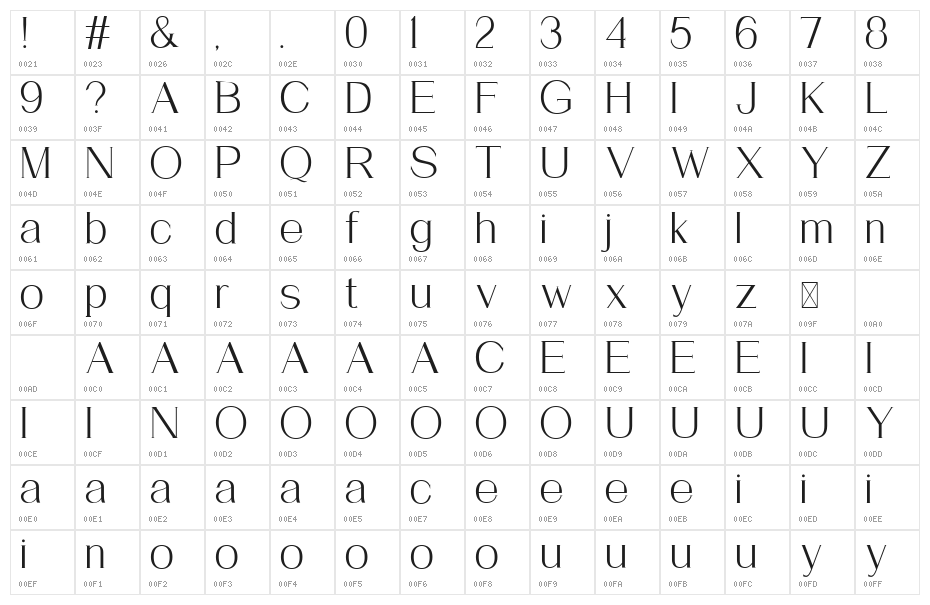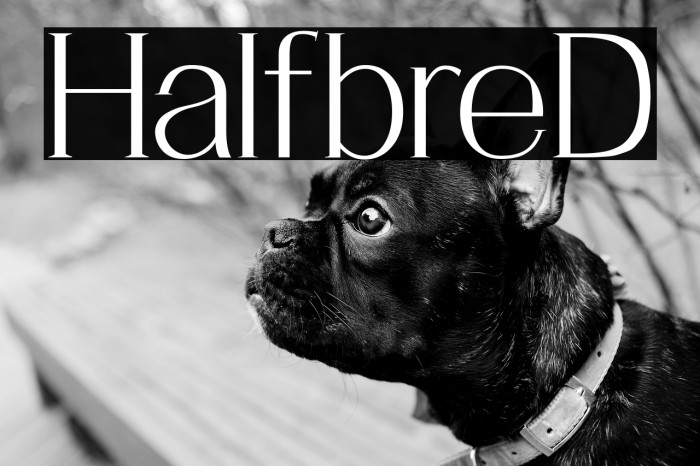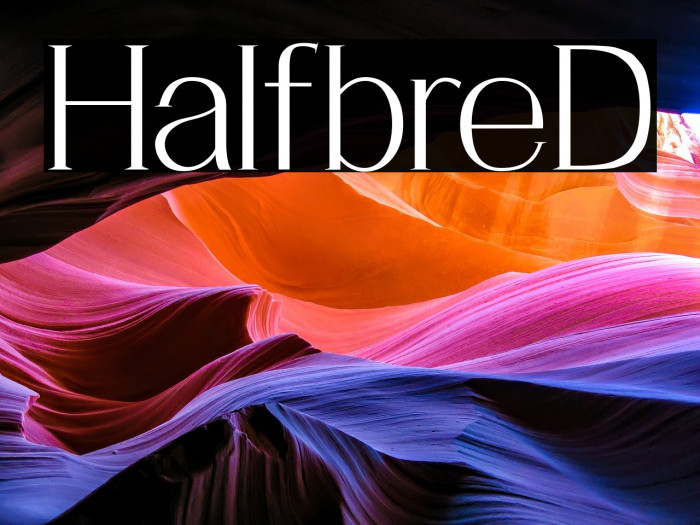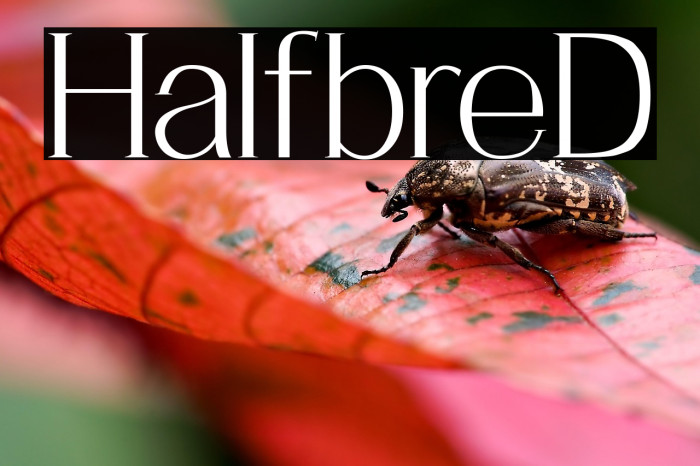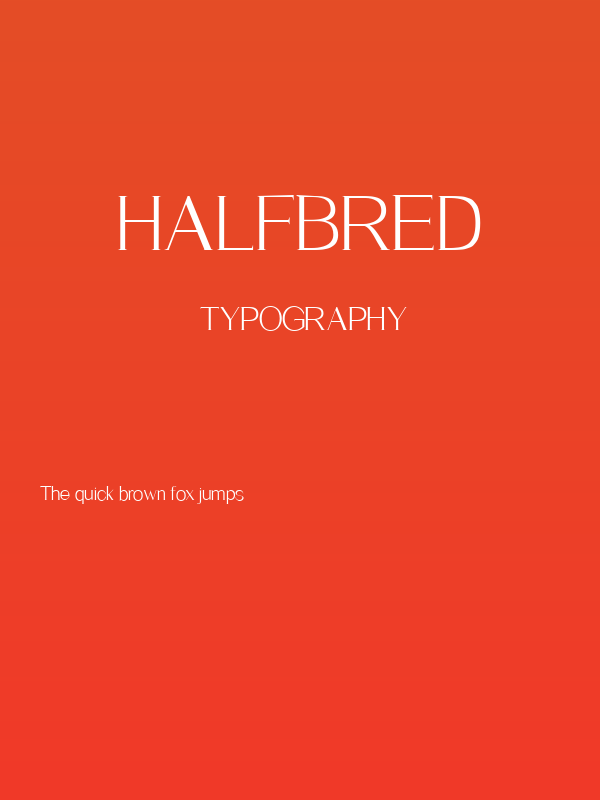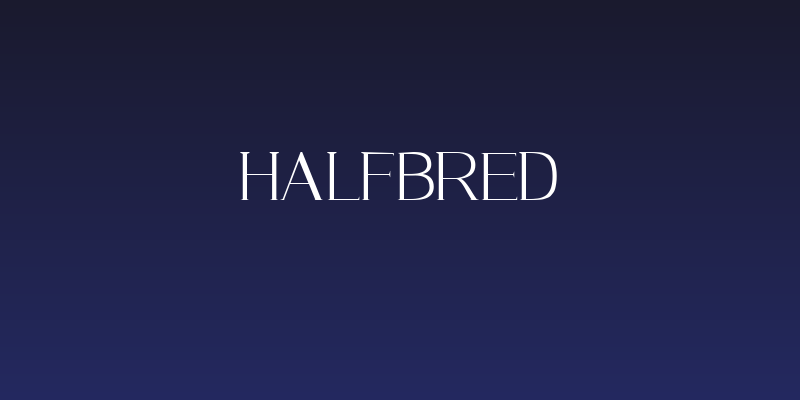
HalfbreD Font
HalfbreD Description
This font features a modern and elegant design with clean lines and a sophisticated appearance. The uppercase letters are tall and slender, while the lowercase letters maintain a balanced proportion, offering a harmonious look. The numerals are distinct and easy to read, complementing the overall style. Special characters are crafted with precision, adding to the font's versatility. The thin strokes and high contrast between thick and thin lines give it a refined and stylish feel, making it suitable for a variety of design projects.
| Use Case | Headlines, Logos, Editorial design |
| Proposed Projects | Ideal for luxury branding, editorial design, fashion magazines, and high-end product packaging. |